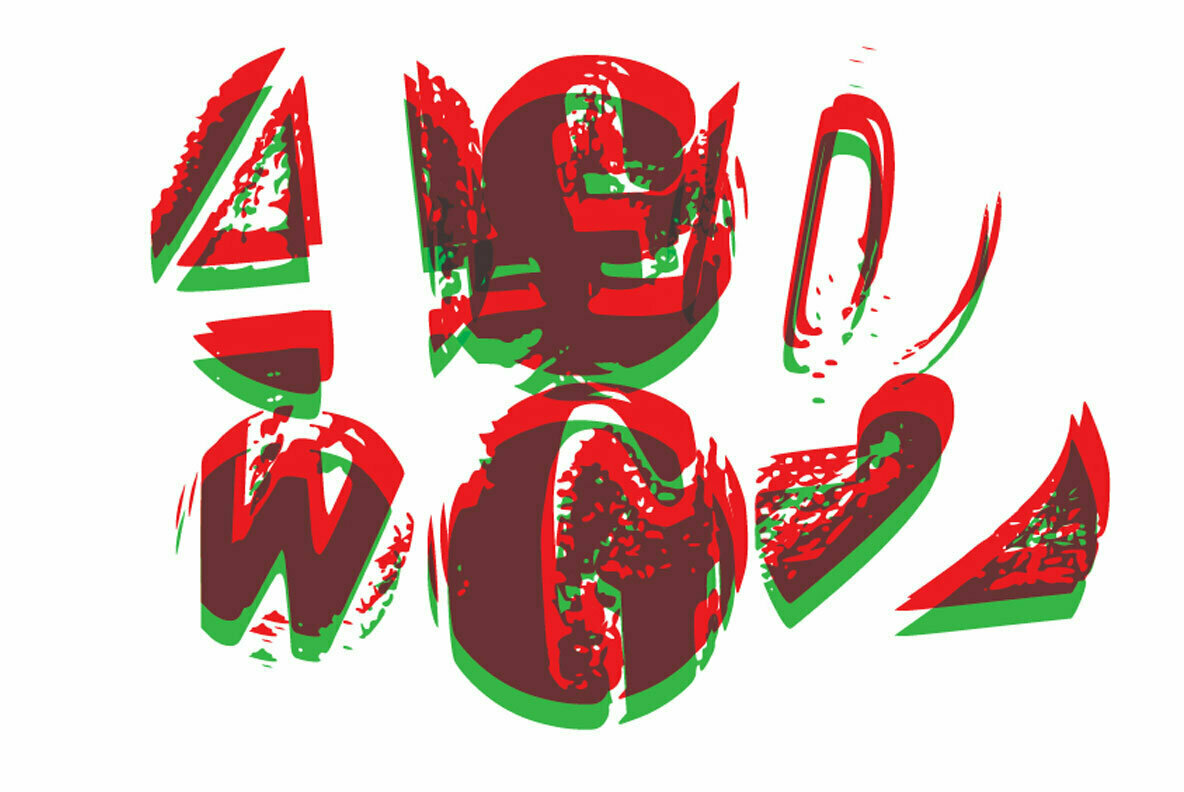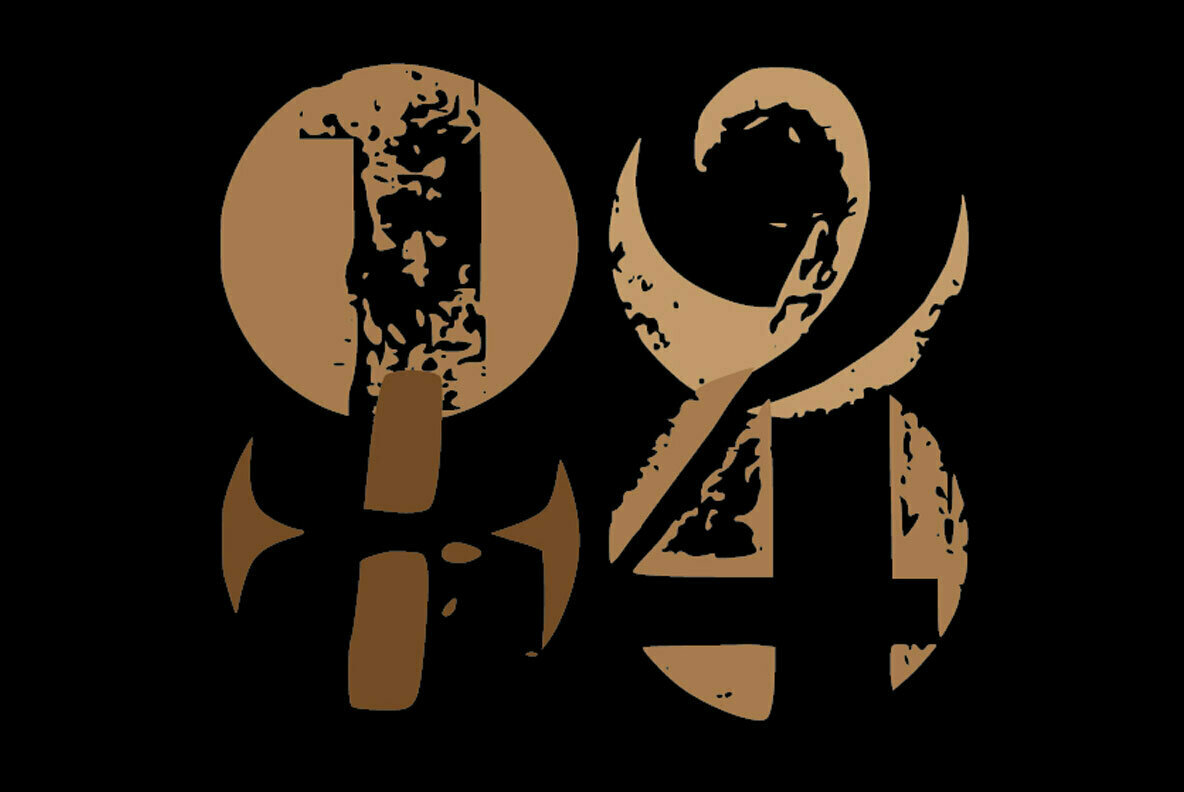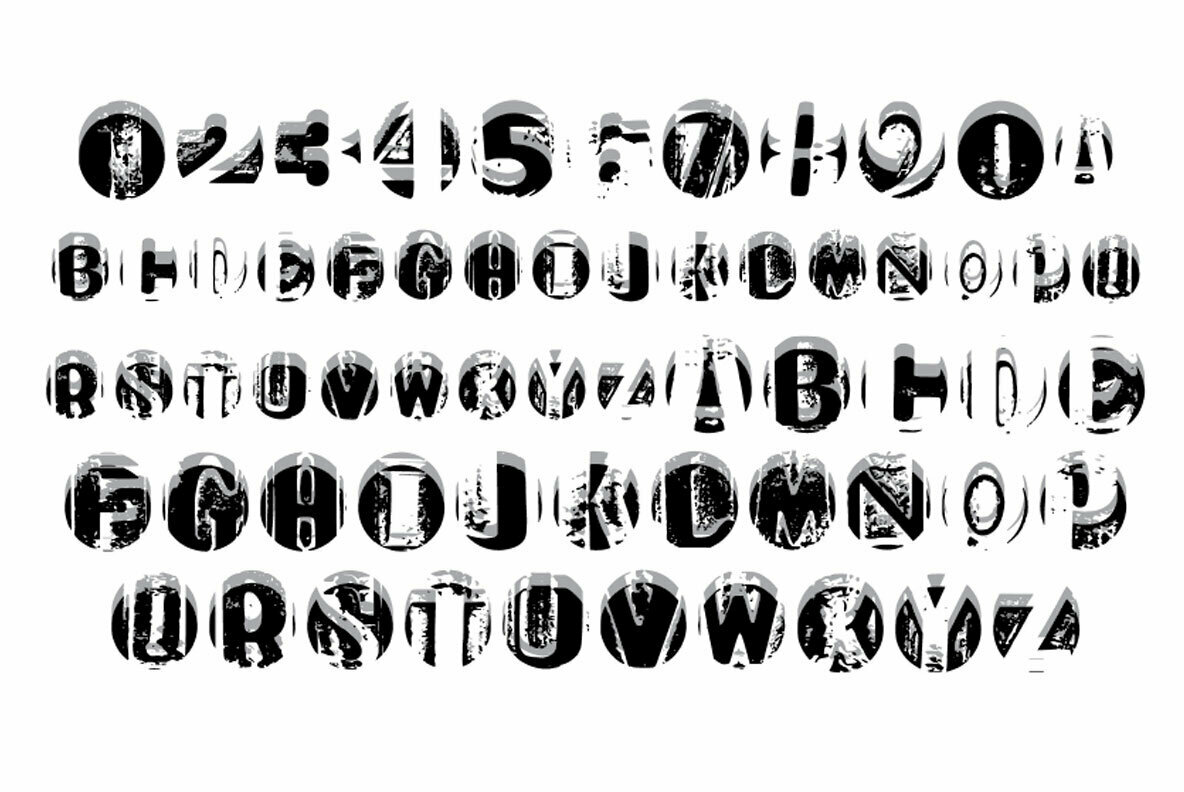
Old Letter Stamps is the ideal font to give your crafting or designs a retro vibe. It features stunning retro stamps, with each one featuring an affected letter sampling a wooden block type.